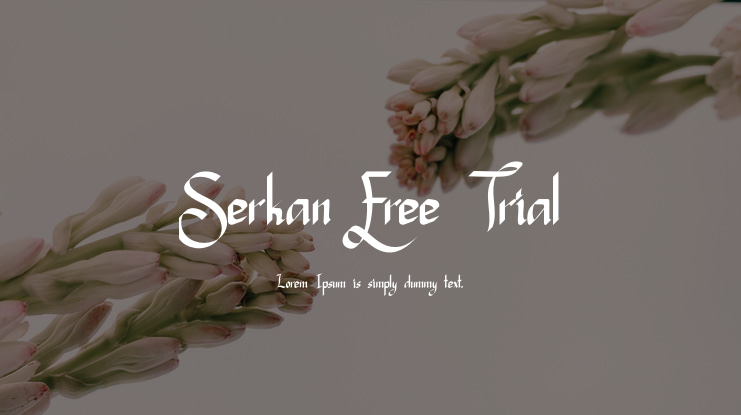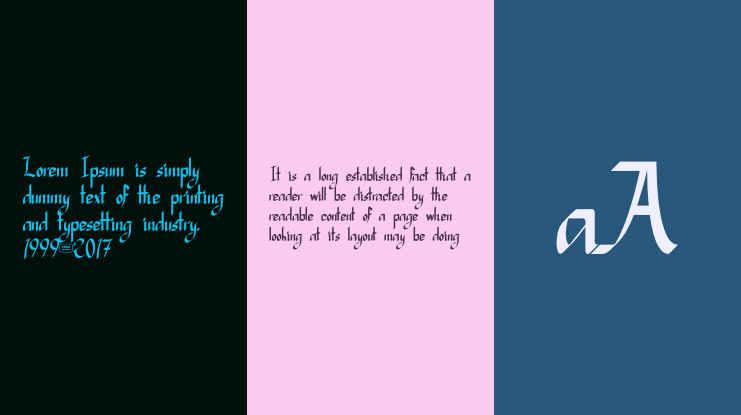
Serkan Free Trial Font
Serkan - A Celtic font.
This unique display typeface is inspired by celtic styles.
The original look will appeal to a wide range of crafty ideas, from letterheads and titles, to stationery.